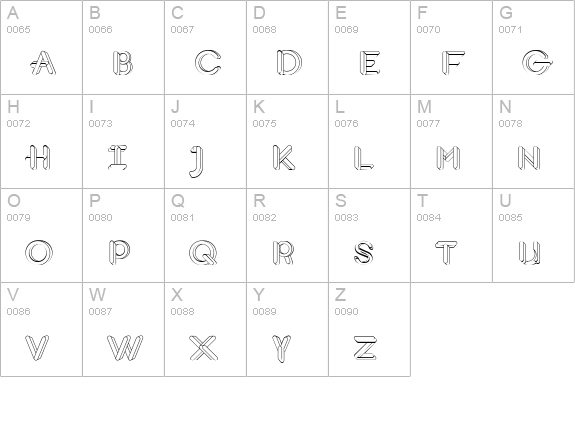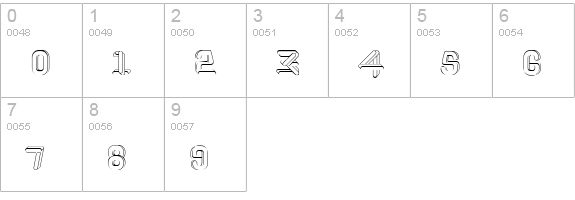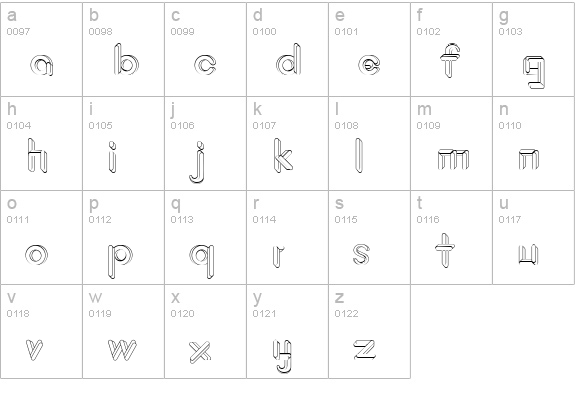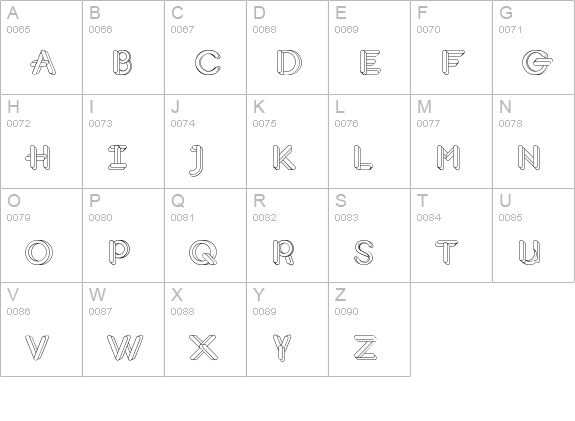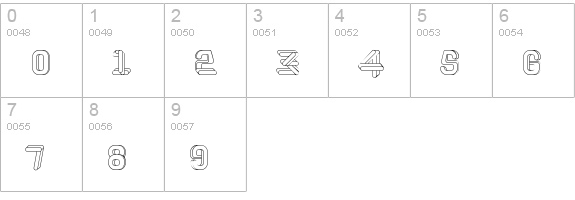
JohanVaaler font is a beautifully crafted typeface that exudes elegance and sophistication. With its clean lines and modern design, this font is perfect for a wide range of projects, from branding and logo designs to editorial layouts and web designs. But what sets JohanVaaler font apart is not just its impeccable aesthetics, but also the fact that it is completely free. Yes, you heard that right – this incredible font is available for free download at FontsMarket.com. Whether you are a professional designer looking to add a touch of class to your projects or a hobbyist searching for the perfect font for your personal creations, JohanVaaler font is the answer. The versatility of JohanVaaler font is evident in its extensive character set, which includes both uppercase and lowercase letters, numerals, punctuation marks, and special symbols. This ensures that you have all the tools you need to bring your creative visions to life. Furthermore, JohanVaaler font is incredibly easy to work with. Its legibility and readability make it a great choice for both body texts and headlines, while its precise spacing and kerning ensure a seamless and professional finish to your designs. So why wait? Take advantage of this amazing opportunity to enhance your design toolbox with JohanVaaler font. Download it for free today at FontsMarket.com and let your creative ideas flourish.